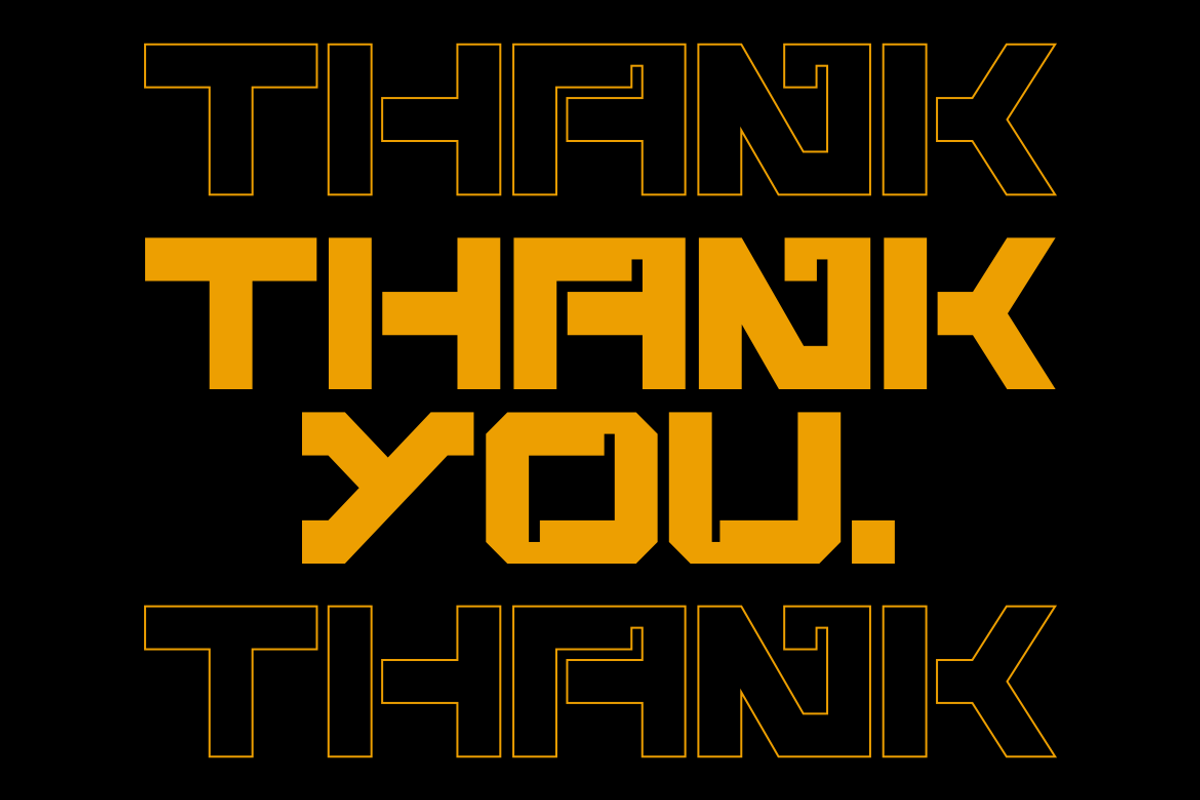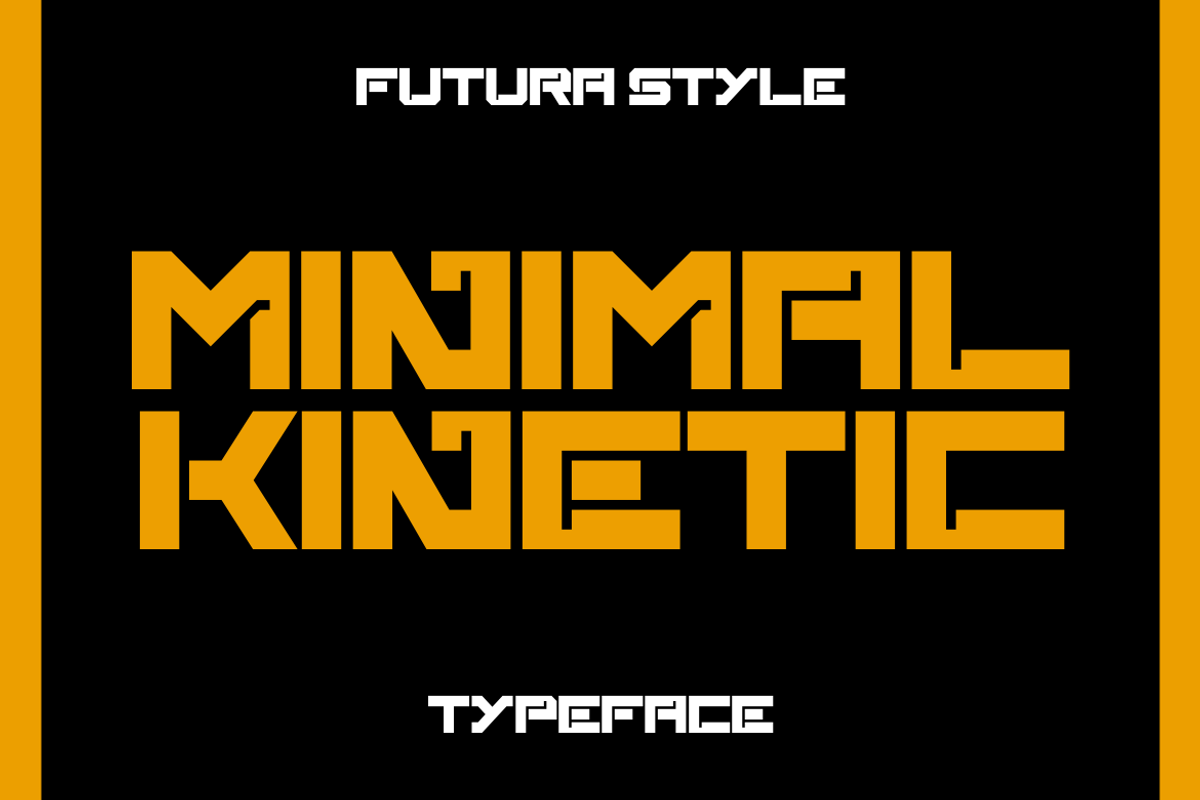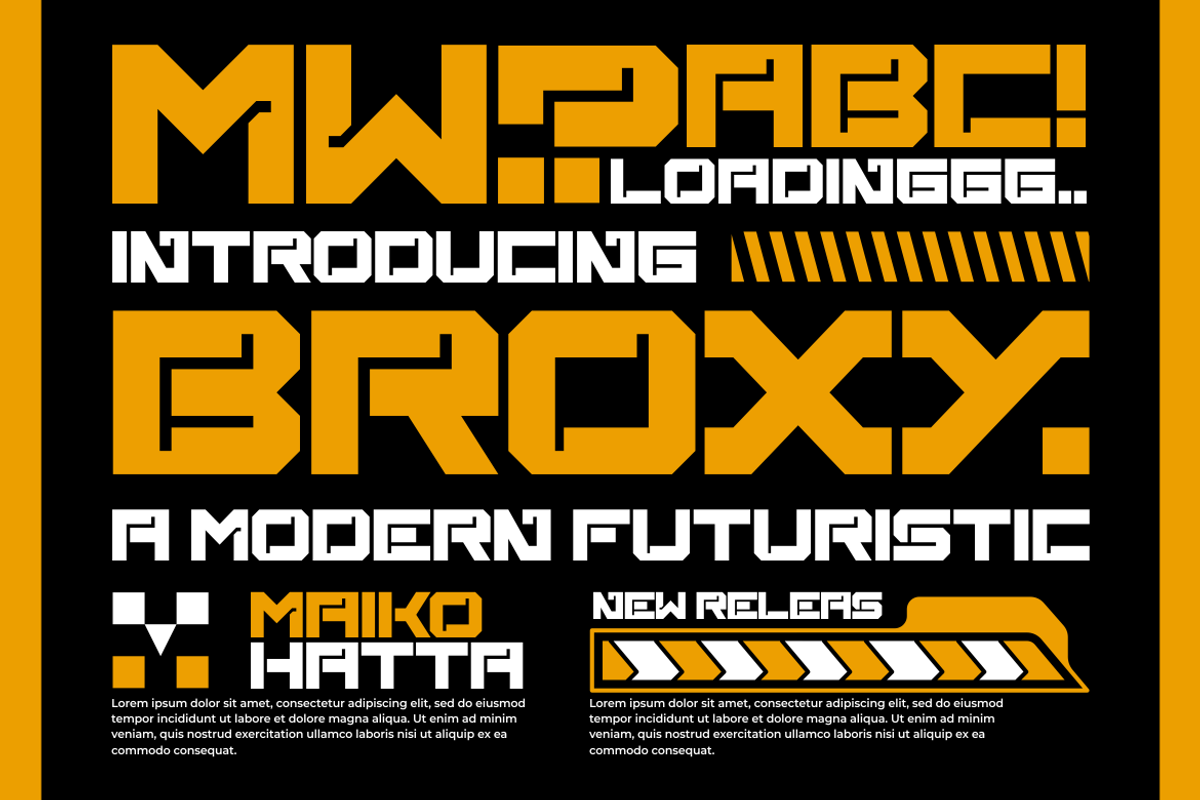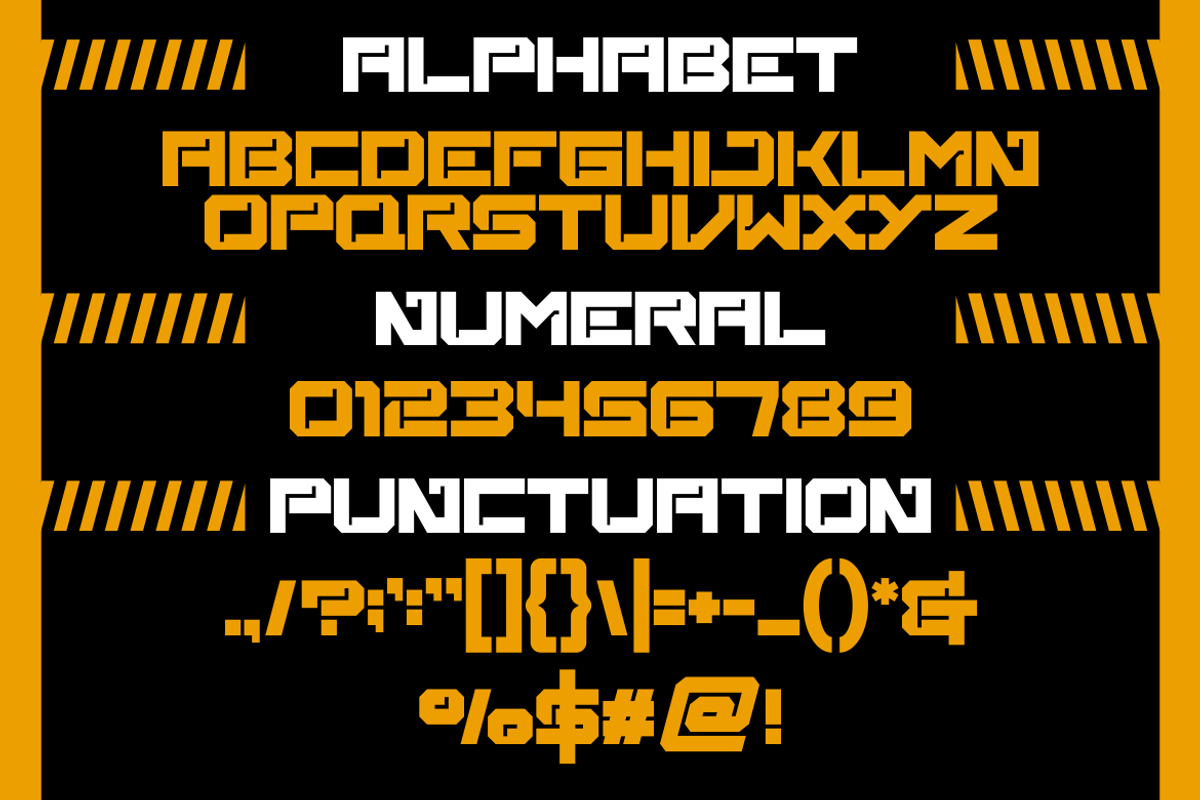
Broxy - Modern Techno Font
Introducing our new product Broxy - Modern Techno Font
Broxy - Modern Techno Font is a bold and authentic display font. The font is suitable for any branding project like logo, t-shirt printing, esport, and many more. outstanding in a wide range of contexts.